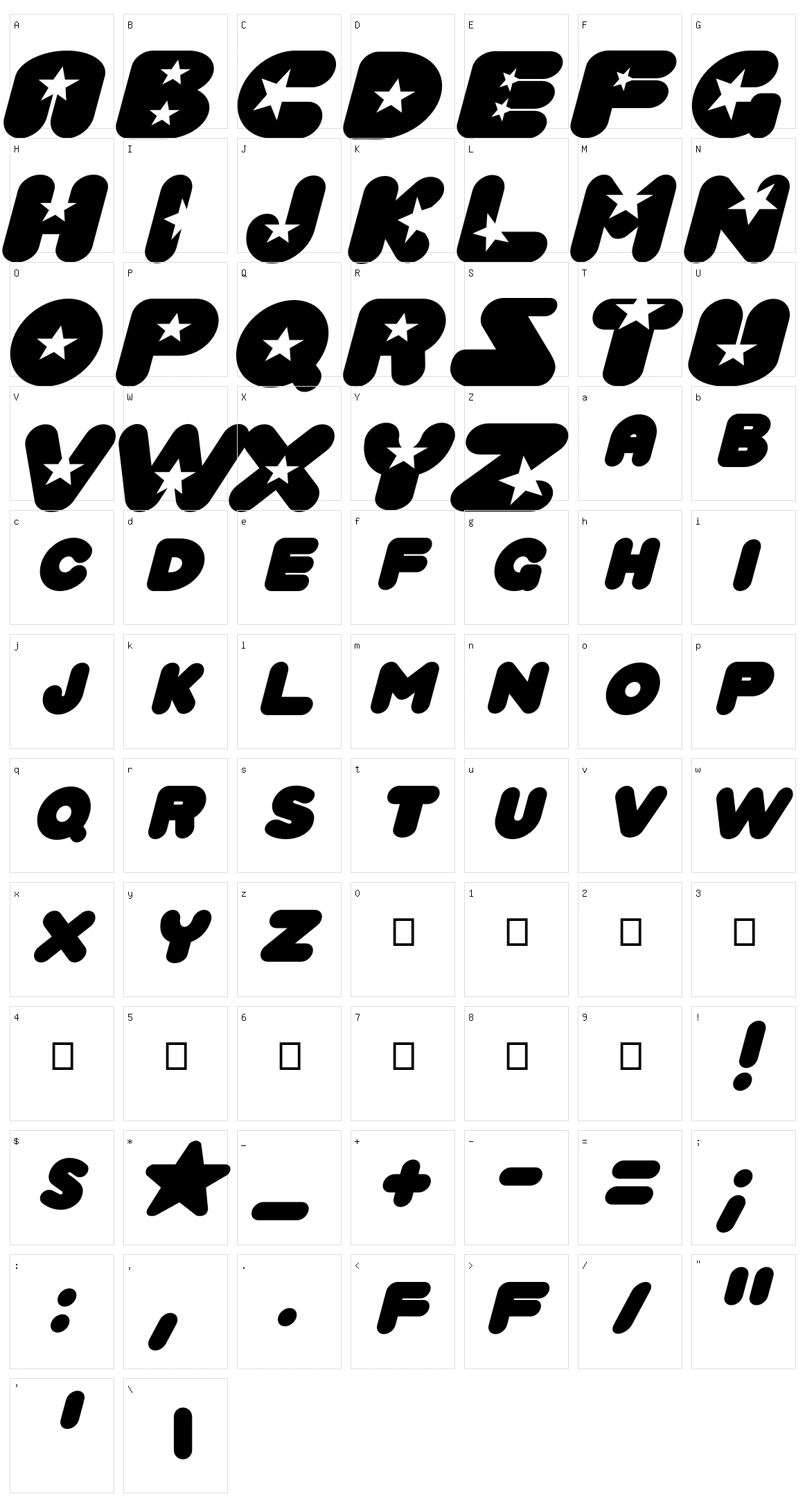
CRYSTAL UNIVERSE FONT
Crystal Universe is a font that replicates the font used for the logo of the animated television show Steven Universe (tm).
Steven Universe (tm) was created by Rebecca Sugar.